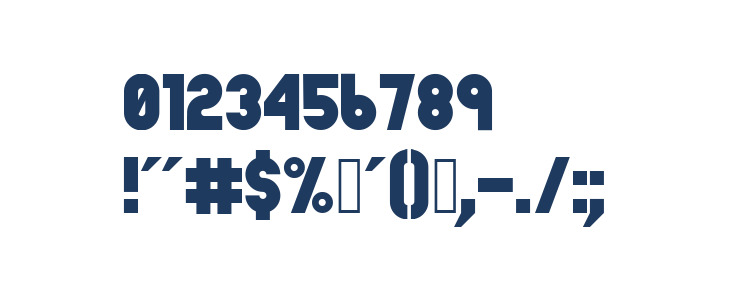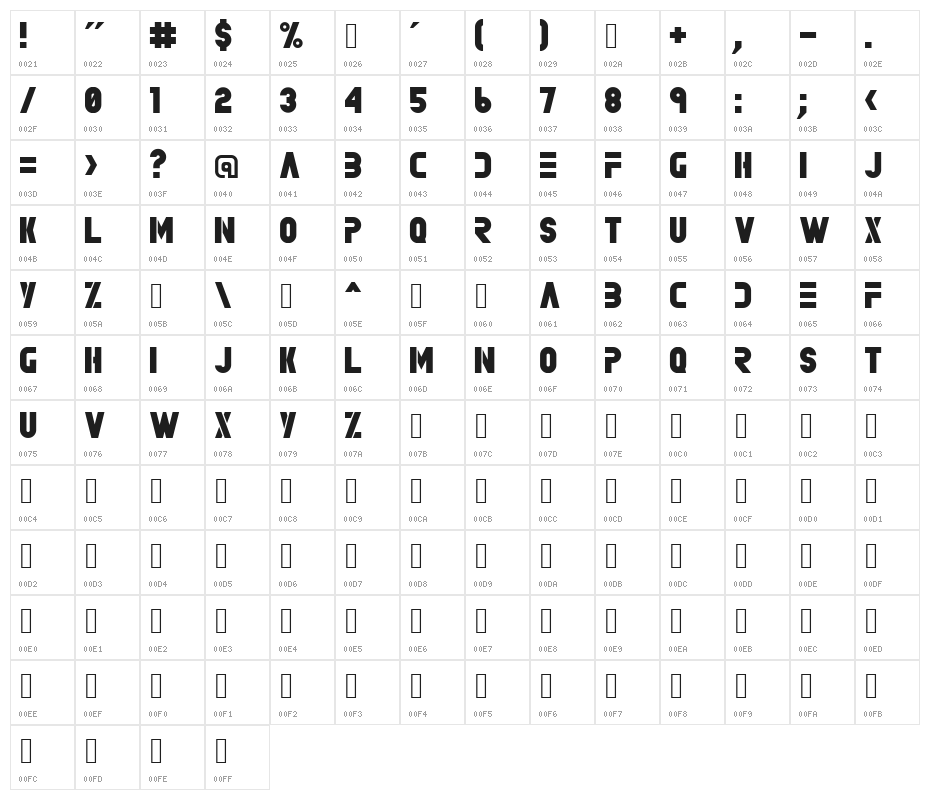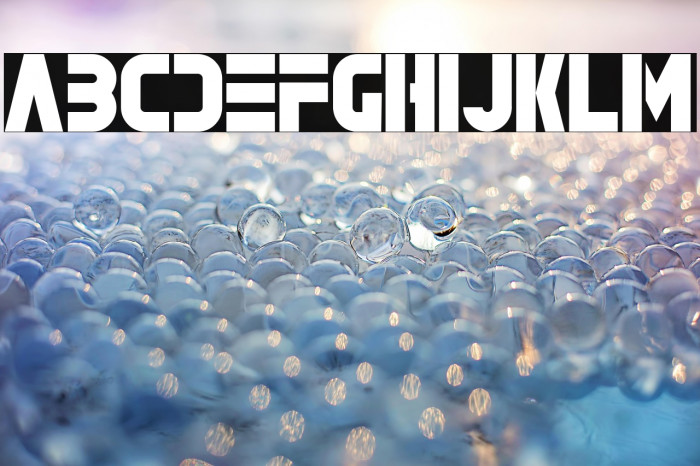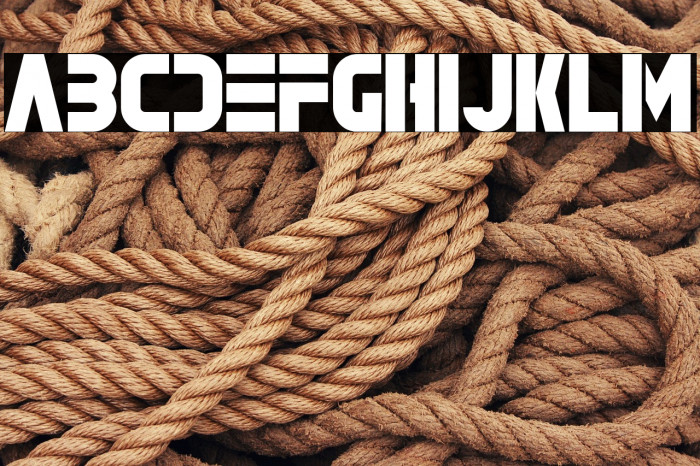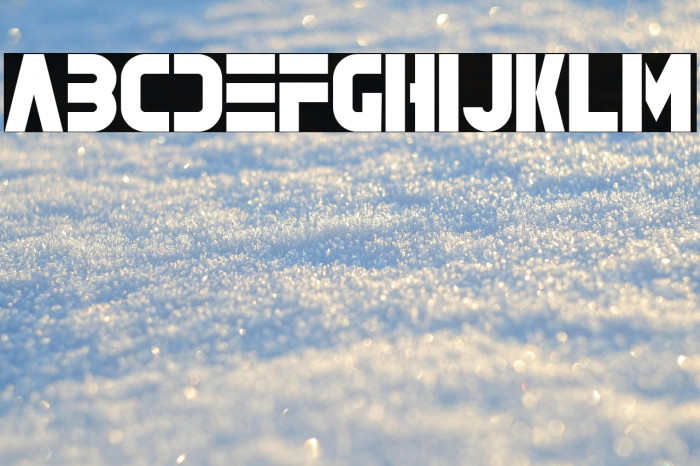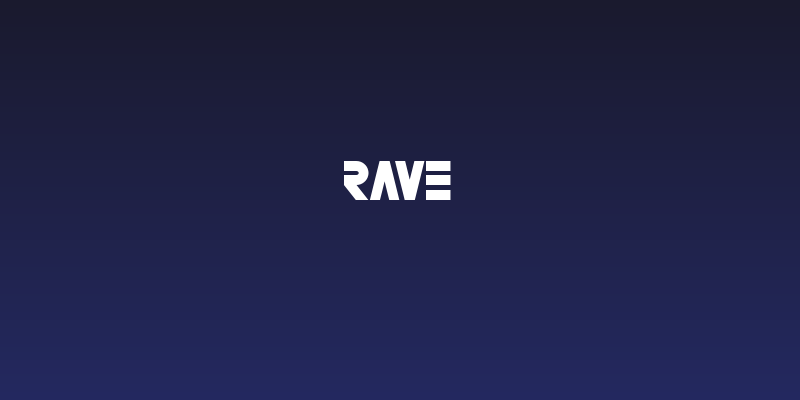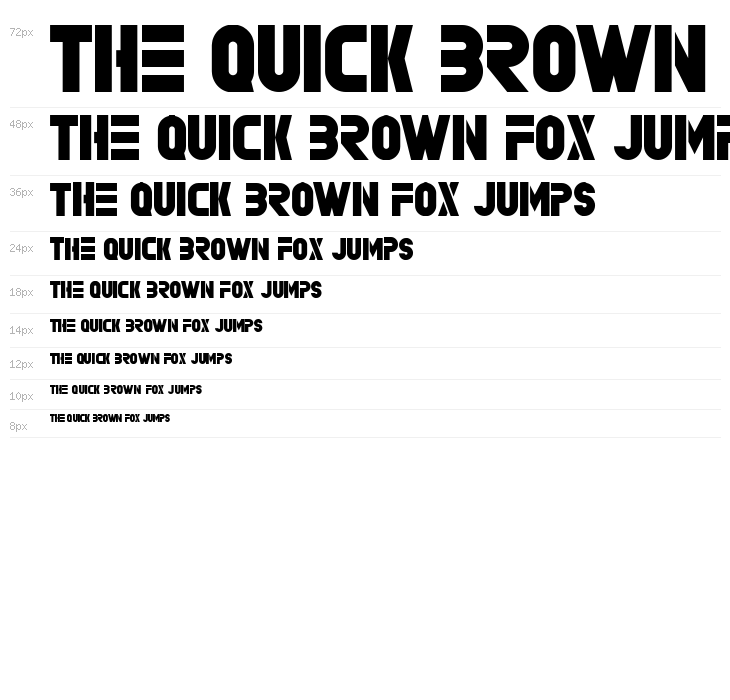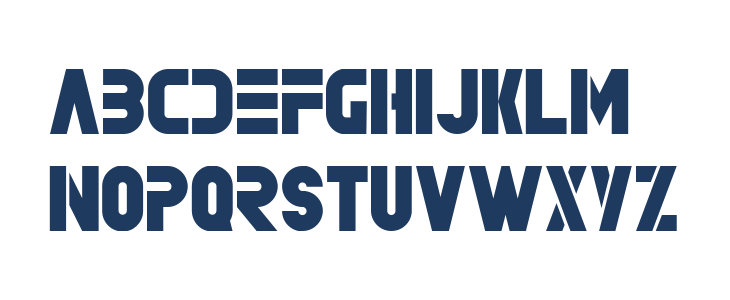
Rave Font
Rave Description
This font features a bold and striking design with geometric shapes and sharp angles. The uppercase letters are characterized by their blocky, solid forms, creating a sense of strength and modernity. The numbers and special characters maintain this bold aesthetic, ensuring consistency across all glyphs. The font's unique style is achieved through its use of negative space and angular cuts, giving it a futuristic and industrial feel. It's particularly well-suited for projects that require a strong visual impact, such as posters, logos, and headlines. The font's design is both eye-catching and versatile, making it a great choice for creative and contemporary applications.